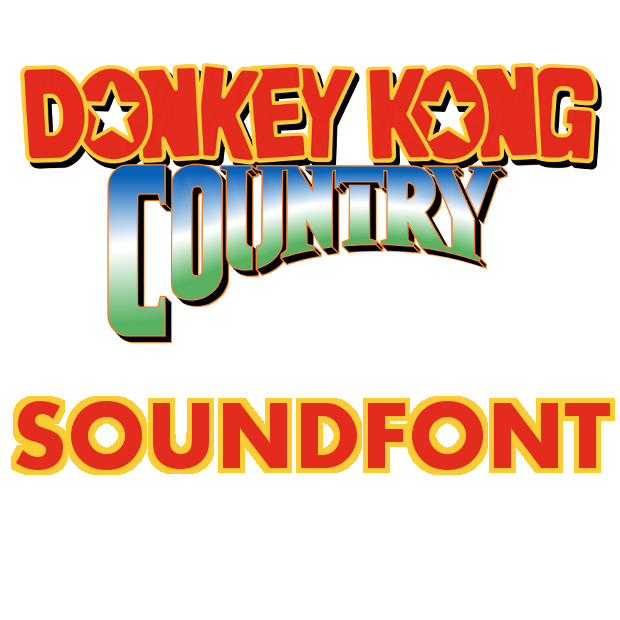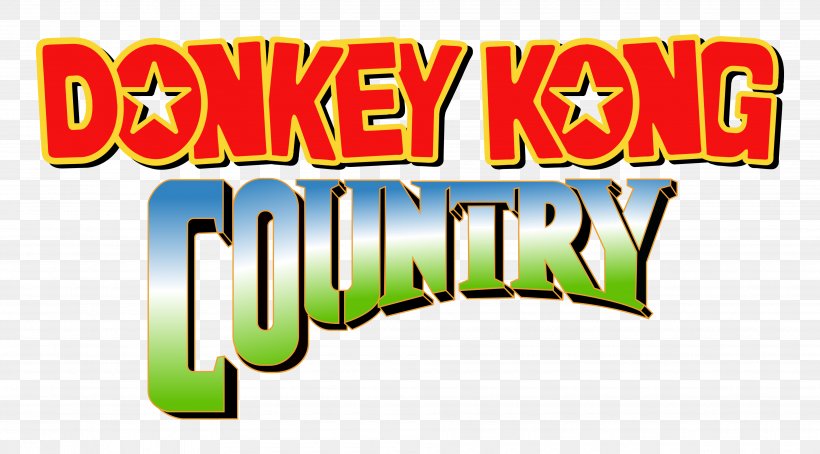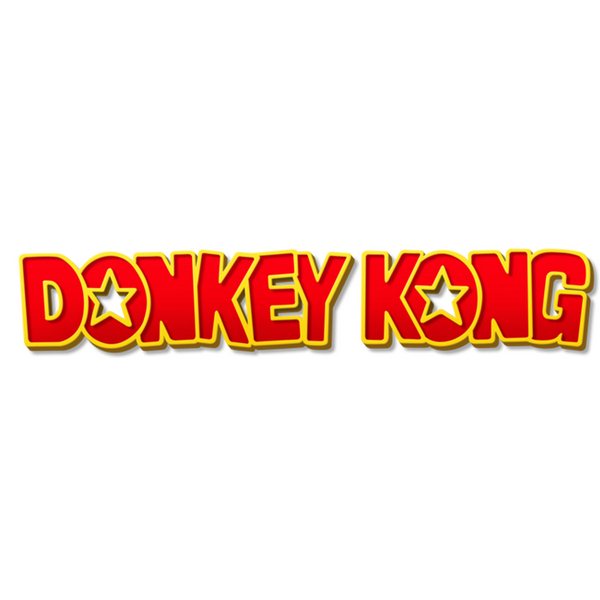
The lettering for the donkey kong logo, which features a star in the letter “o”, is very similar to a font named jumpman by neale davidson. Donkey kong font is a logo font that we see in the logo of donkey kong.
Before discussing its font family, we should discuss donkey kong. It’s a video game that was published by nintendo for the first time on 9th july 1981. This font was made by the creator of the site:
Donkey kong world is a dingbats, games font designed by david pustansky. It features the adventures of a gorilla character named donnie kang. Feel free to edit it and customize it however you need!